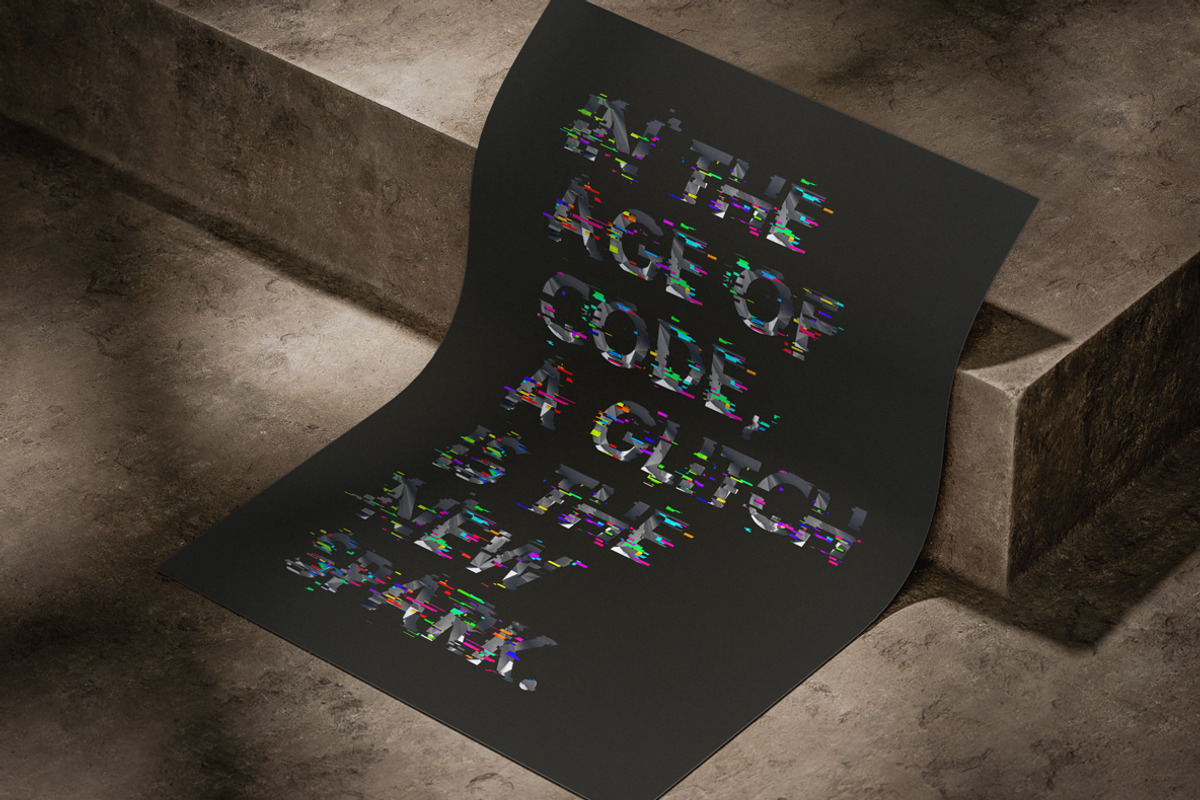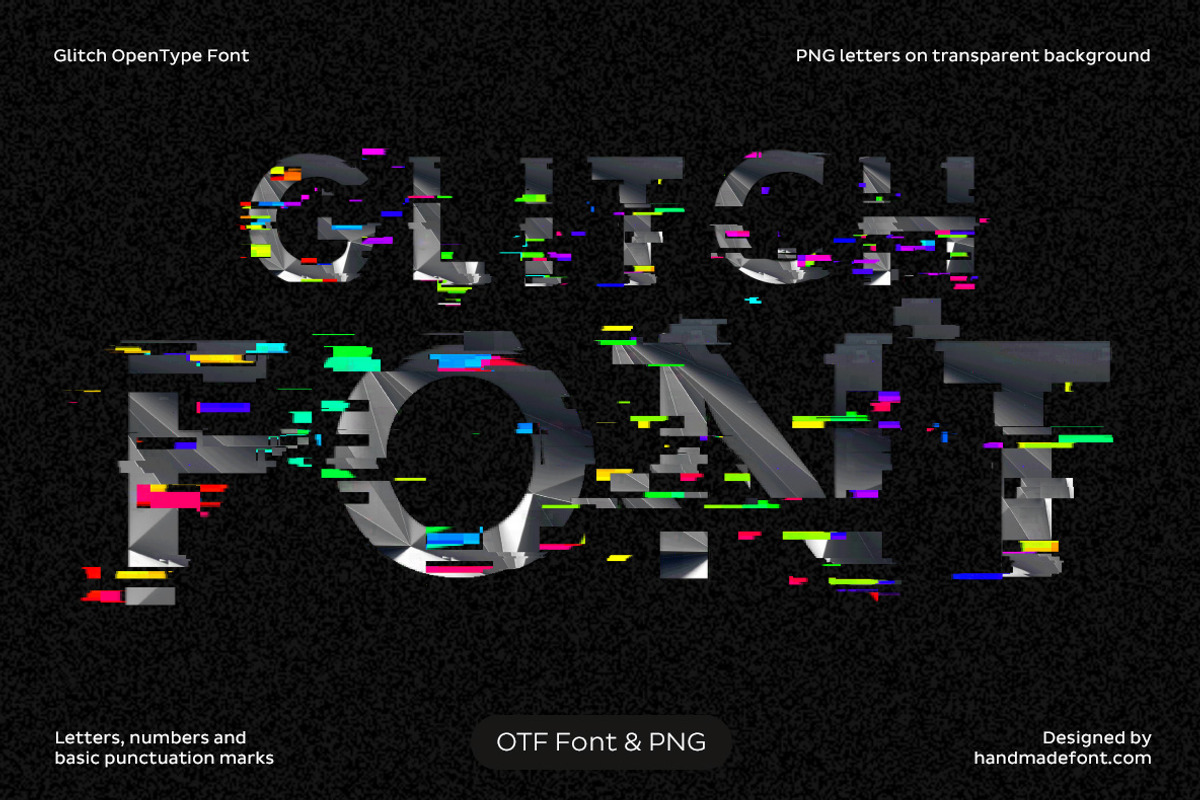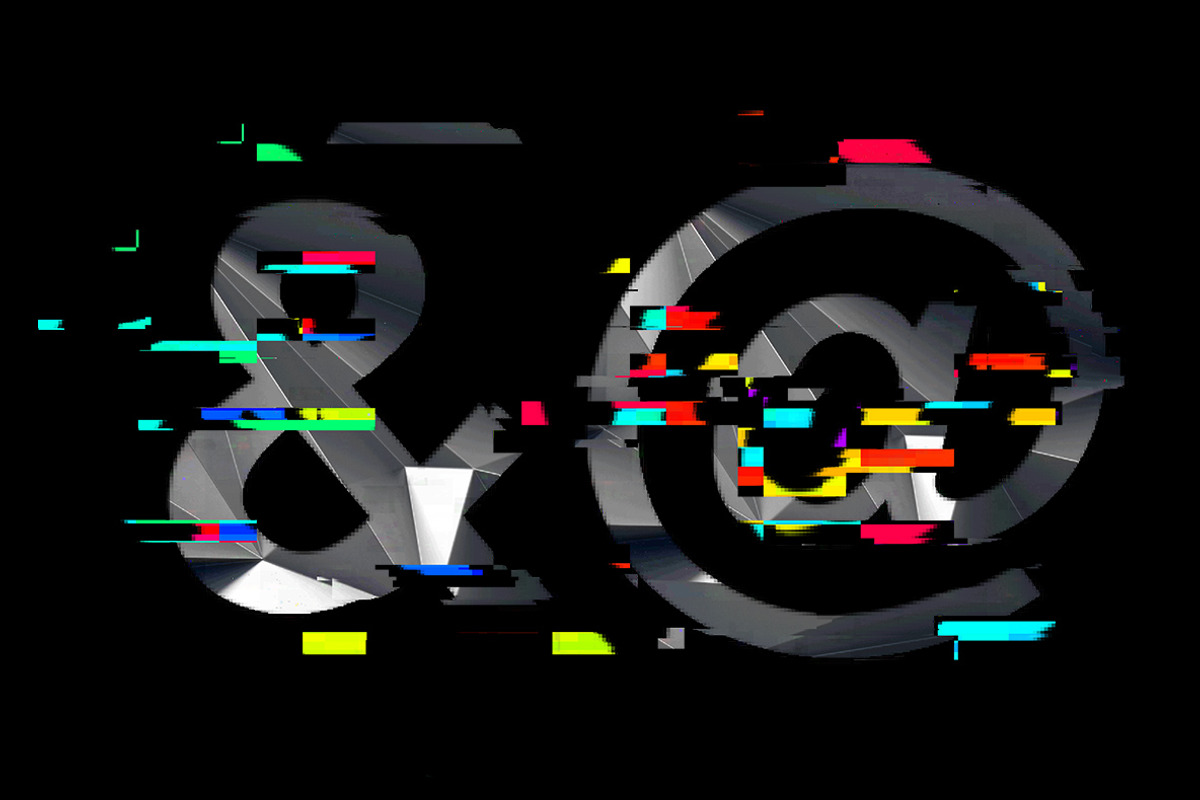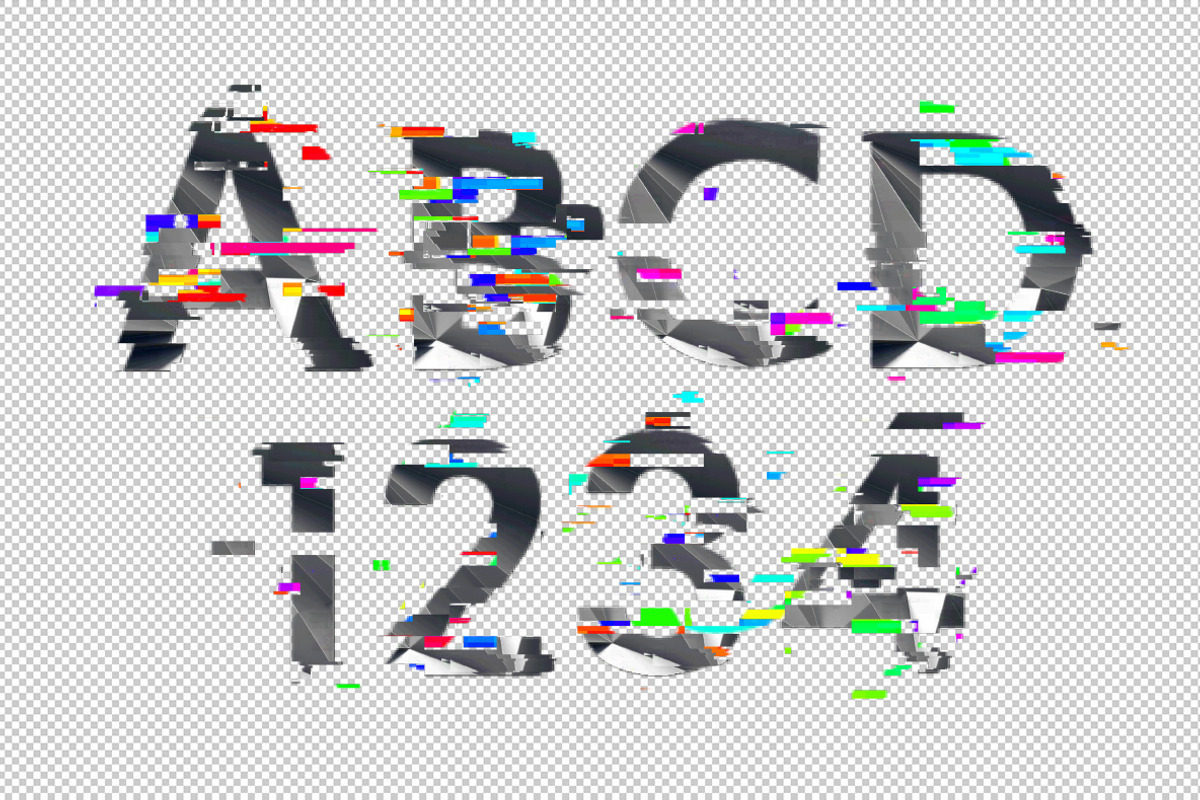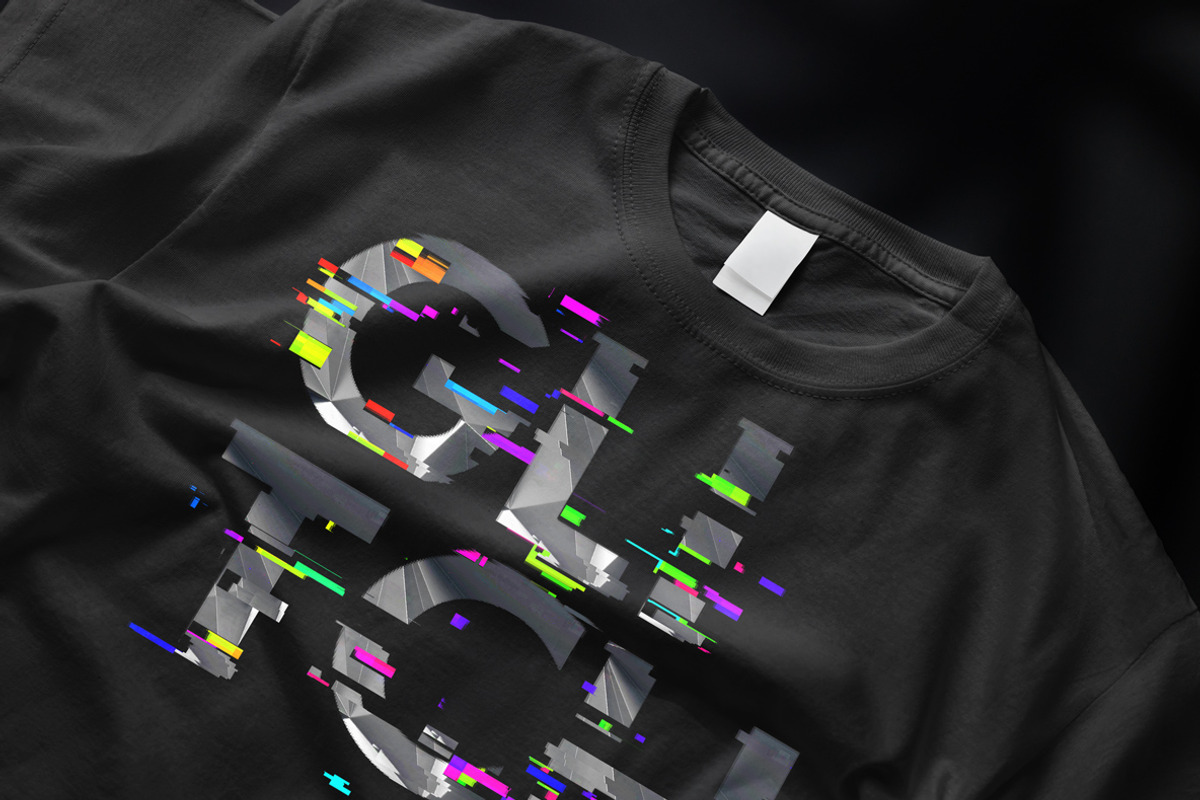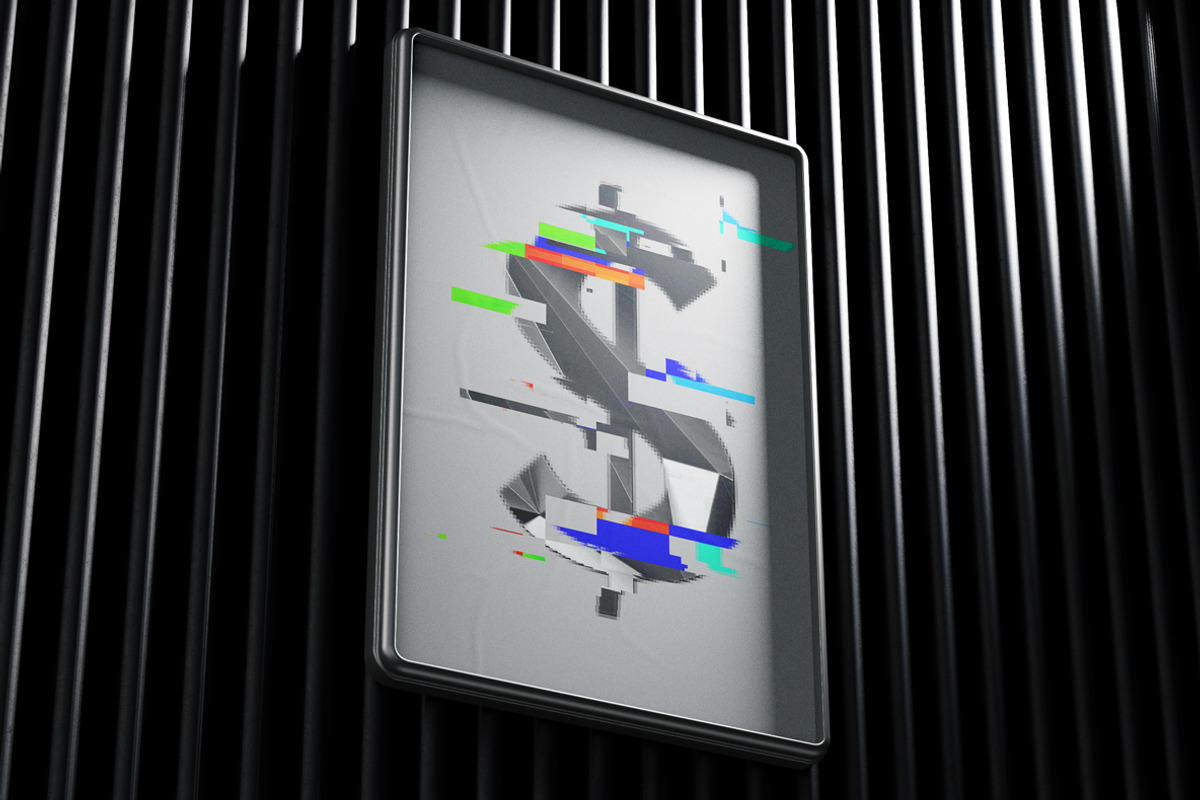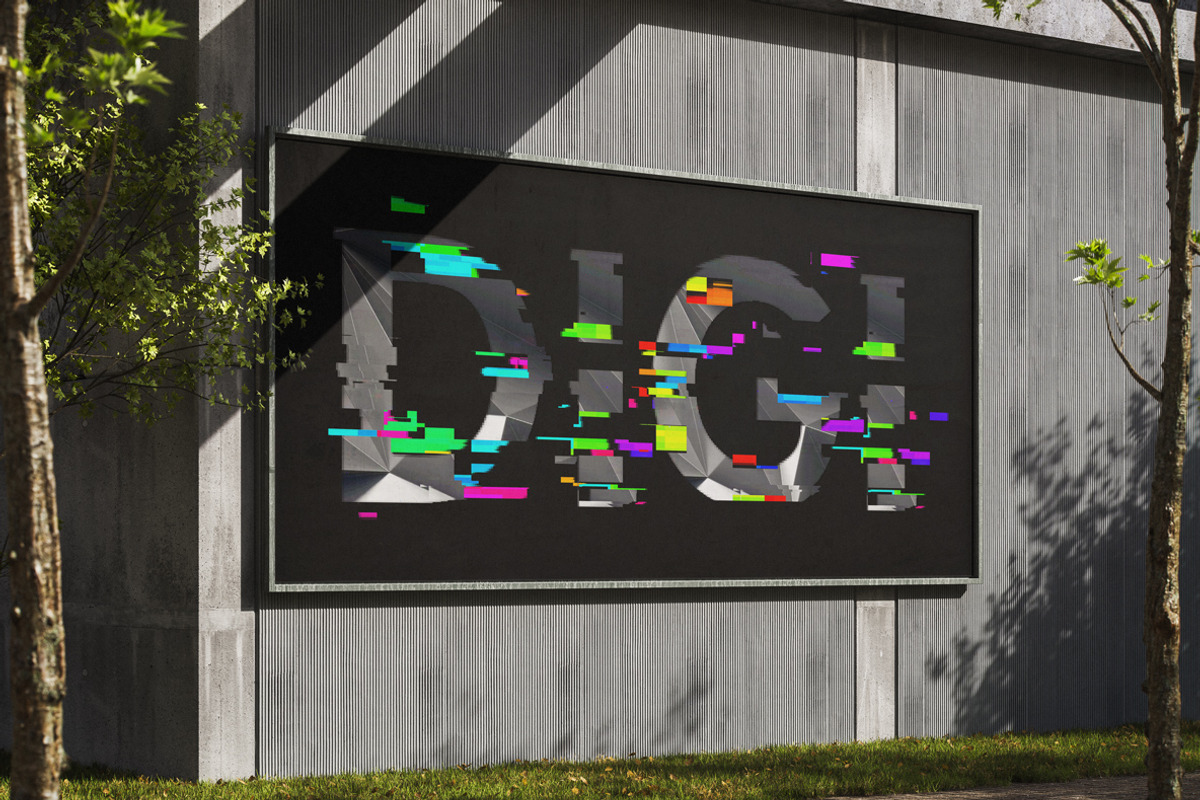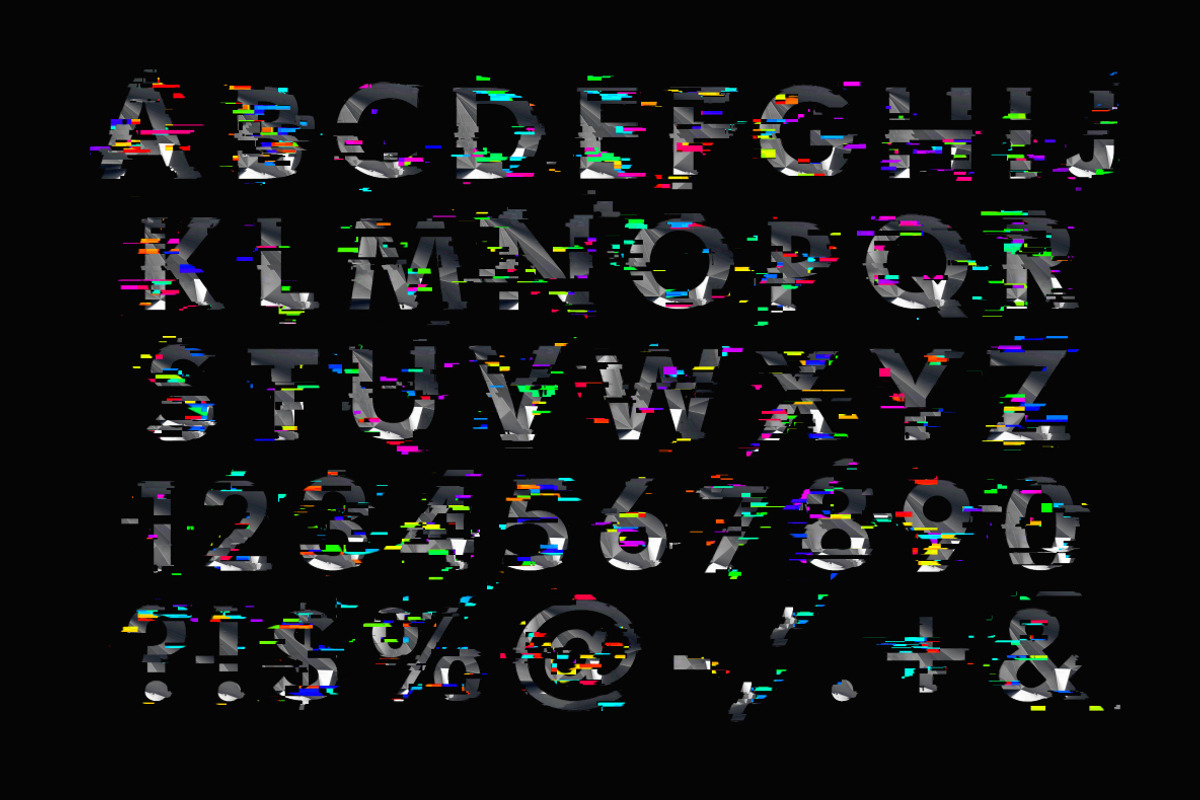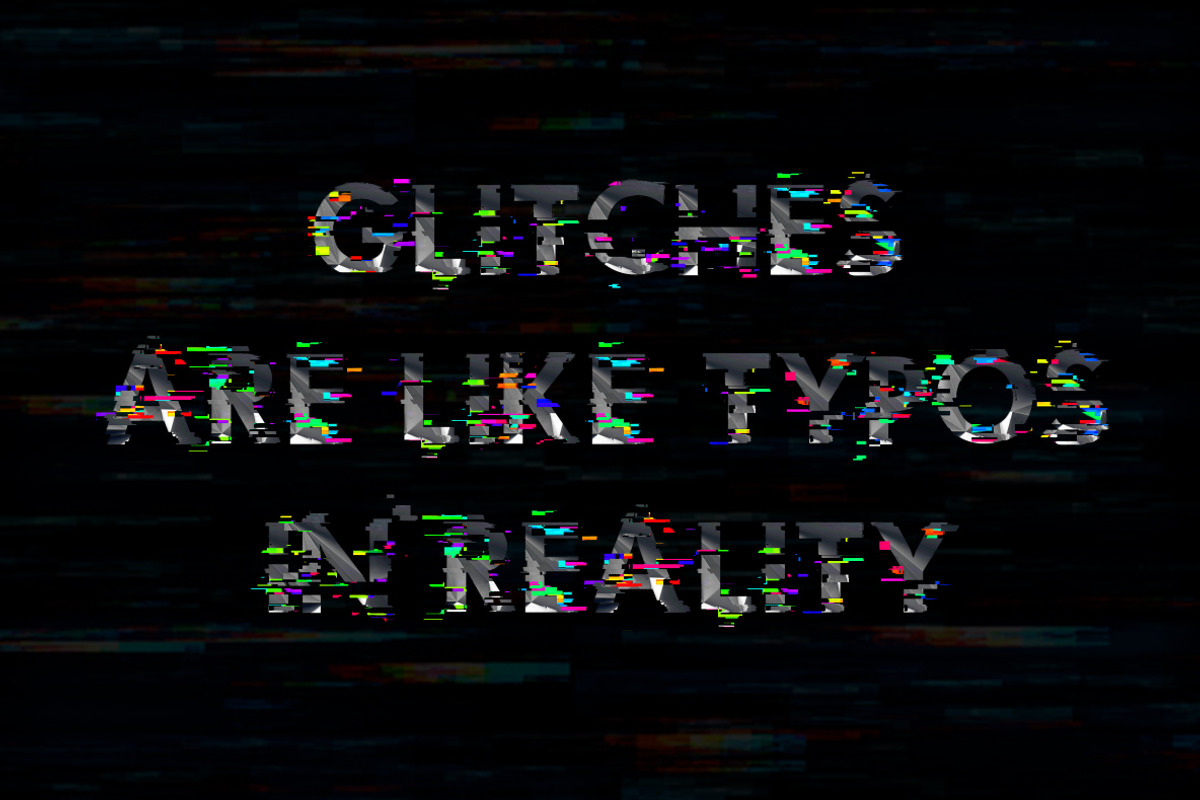
Glitch Font
Glitch Font is a digital meltdown in typographic form. Each character is fragmented, pixelated, and buzzing with vibrant, corrupted energy. Imagine a signal gone rogue, static snow crackling through the lines, and bursts of neon chaos streaking across the screen. It’s like your text just hacked into the Matrix. Perfect for digital art, tech branding, or experimental designs that demand attention. Glitch Font captures the unpredictable beauty of technological errors—turning digital noise into creative signal. When you need your words to stand out in the static, Glitch Font is your glitch in the system, and it’s awesome.
A high definition OpenType Font. Contains uppercase characters, numerals and basic punctuation. (Draw height roughly 800 pixels). All letters and glyphs that comprises this font you can see on the preview.
- Letters : A B C D E F G H I J K L M N O P Q R S T U V W X Y Z
- Numbers : 0 1 2 3 4 5 6 7 8 9
- Others : ! ? - . ' $ % & #